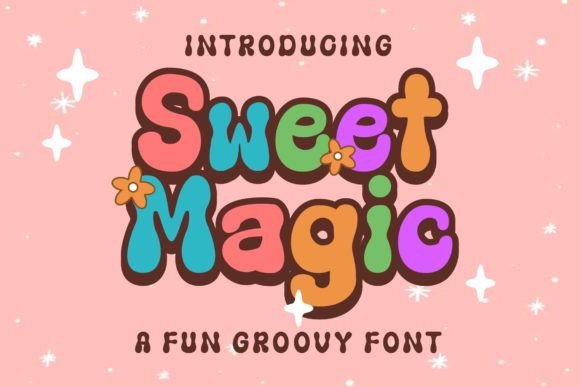
Sweet Magic: A Playful Display Font That Makes Headlines Pop
It’s 10:47 a.m. on launch day—and I’m squinting at my phone screen, scrolling through Instagram previews of our new seasonal sale campaign. The first three thumbnails blur together: same layout, same color palette, same energy—but something’s missing. Then I spot it: the headline on the fourth post, set in Sweet Magic. Instant pause. Instant smile. It’s not just readable—it’s *inviting*. Like the font leaned in and whispered, “Hey, this matters.” That’s when I knew we’d found our campaign’s visual spark.
Sweet Magic isn’t just another retro display font. It’s got bounce, charm, and a subtle wink—think mid-century diner signage meets modern editorial flair. Rounded terminals, gentle curves, and open letterforms give it warmth without sacrificing clarity. It feels handmade but polished, nostalgic but fresh. And unlike many playful fonts, it doesn’t sacrifice legibility for personality. On mobile feeds, where attention lasts less than two seconds, that balance is non-negotiable.
We used Sweet Magic across six core campaign assets: Instagram Reels covers, Pinterest product pins, YouTube thumbnail text overlays, email banner headers, Shopify homepage promo banners, and a set of branded quote graphics for Stories. In every case, it anchored the message—not buried it. For example, on a Reels cover announcing “Summer Sale Starts Friday,” the font turned a functional date into a moment of anticipation. Same with a Pinterest pin for ceramic mugs: “Handmade. Heart-led.” The words felt tactile, almost like you could trace the curves with your finger.
This is where Sweet Magic shines brightest: as display text. Not body copy. Not captions. Display. It’s built for impact—short headlines, campaign labels (“Limited Edition”), logo-style treatments, decorative titles, and bold callouts. We tested it at 28px on dark-mode mobile previews (yes, we checked both light and dark backgrounds), and it held up cleanly—even over busy photo overlays. Its generous x-height and spaced-out letterforms prevent crowding in tight spaces like YouTube thumbnails or small ad units.
But here’s what really sealed the deal: consistency without repetition. We paired Sweet Magic with a clean, neutral sans serif—specifically a variable weight version of Inter—for all supporting text. Headline in Sweet Magic. Subhead and body in Inter. No competing personalities. Just clear hierarchy. It worked equally well next to a restrained serif (for email newsletter intros) or a delicate handwritten font (in behind-the-scenes Story graphics). The key? Letting Sweet Magic lead, then stepping back.
We also dug into the font files before finalizing anything. Sweet Magic includes stylistic alternates—like a swash ‘Q’ and a dotted ‘i’—that added subtle variation across our content series without breaking cohesion. Ligatures smoothed out awkward letter combos (especially in “Sweet” and “Magic” themselves), and the OTF and WOFF2 formats meant seamless web and app integration. Crucially, the license covers commercial use across digital ads, client templates, and even merch mockups—no last-minute licensing panic before sending files to the printer.
One afternoon, while prepping a webinar banner, I tried swapping Sweet Magic for a similar-looking free font. The difference was immediate—and disheartening. The free version felt stiff. Flat. Like it was trying too hard to be fun. Sweet Magic, by contrast, had rhythm. Breath. Intention. That’s the quiet power of a well-crafted display font: it doesn’t shout. It *connects*.
It’s also surprisingly versatile across platforms. On Pinterest, where vertical pins dominate, Sweet Magic’s tall ascenders and soft curves created elegant vertical flow. In email banners, its weight held up against background gradients. And for our Shopify pop-up (“You’re 10% away from free shipping!”), it transformed a functional nudge into a friendly nudge—with zero extra copy needed.
Of course, we didn’t use it everywhere. We skipped it for pricing tables, product descriptions, and footer links—those need neutrality and speed, not whimsy. And we avoided stacking it with other high-contrast display fonts. One star per scene is enough.
What surprised me most was how often teammates referenced it unprompted: “Can we use Sweet Magic for the welcome screen?” “Does this quote feel right in Sweet Magic?” It became shorthand—not just for style, but for tone. That’s rare. Most fonts are tools. Sweet Magic became part of the voice.
If you’re building a campaign where recognition matters—where first impressions happen in milliseconds and emotional resonance drives engagement—Sweet Magic earns its place. It’s not about nostalgia for nostalgia’s sake. It’s about choosing a display font that makes people *feel* before they even read the words. And in today’s feed-saturated world, that’s not a luxury. It’s strategy.
Before you drop it into your next project, though: check the included weights (we used Regular and Bold exclusively), test multilingual characters if your audience spans regions, and confirm your license covers your use case—especially if you’re bundling it into client deliverables or digital products. A great display font only works when it’s both expressive and empowered.
- Best for: Instagram posts, YouTube thumbnails, Pinterest pins, email banners, landing page headers, promo graphics, branded templates
- Avoid for: Long paragraphs, data tables, legal disclaimers, micro-text on mobile
- Pair with: A neutral sans serif (Inter, Manrope), a warm serif (Cormorant Garamond), or a light script for contrast
- Pro tip: Use its alternates sparingly—to highlight one word per graphic, not every headline